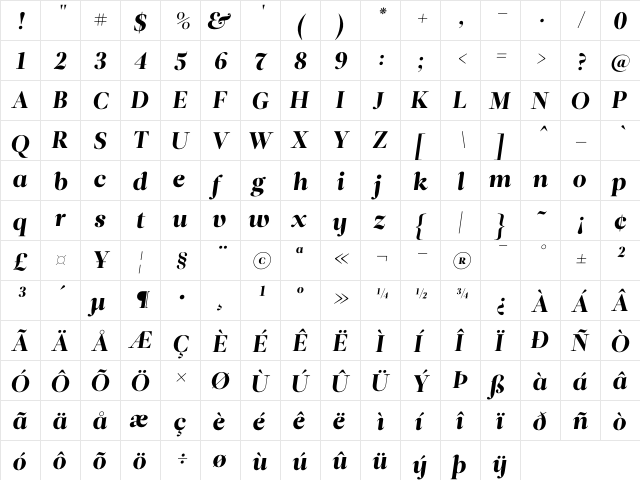
Leitura Display Italic
| Foundry | Dino dos Santos _DSType |
| Designer | Dino dos Santos |
Design Context for Leitura Display Typeface
Leitura Display brings ornamental detail and strong personality to headlines and identities, where visual impact matters more than quiet functionality. The slanted form adds forward momentum and visual energy.
Font Pairing: Pair with a clean neutral sans-serif for body copy to let Leitura Display's character lead without overwhelming the composition.
Pro Tip: Use Leitura Display exclusively at display sizes — it was designed to be seen, not read at length. Let a neutral companion handle body copy.